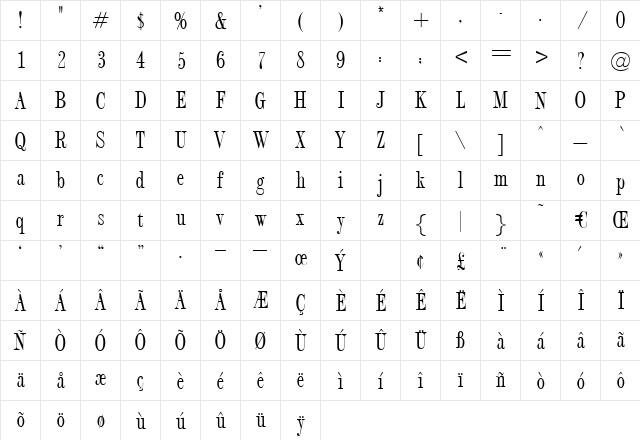
Houston Regular
Design Context for Houston Typeface
Houston is a composed and adaptable typeface that performs quietly and consistently across a wide range of design contexts.